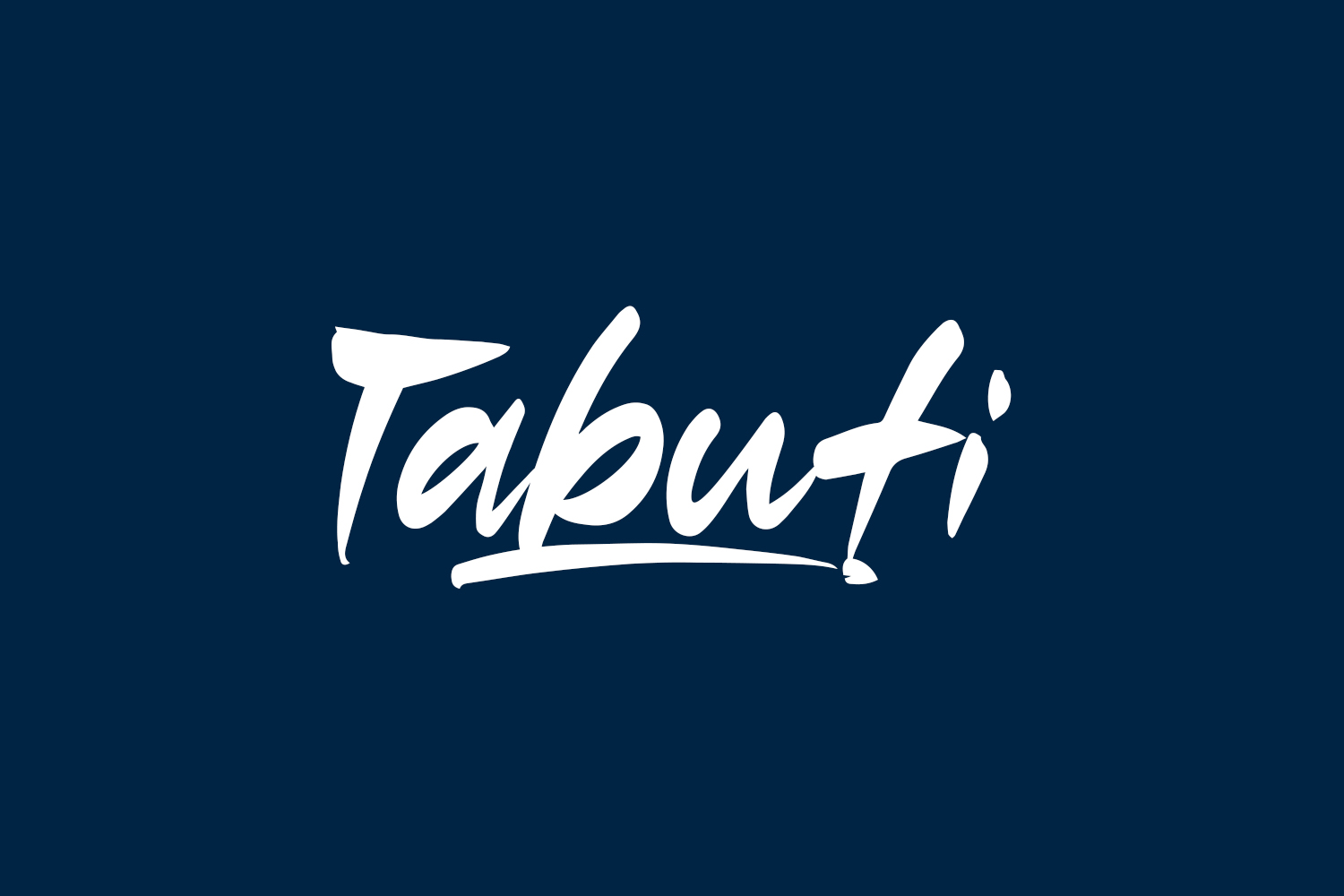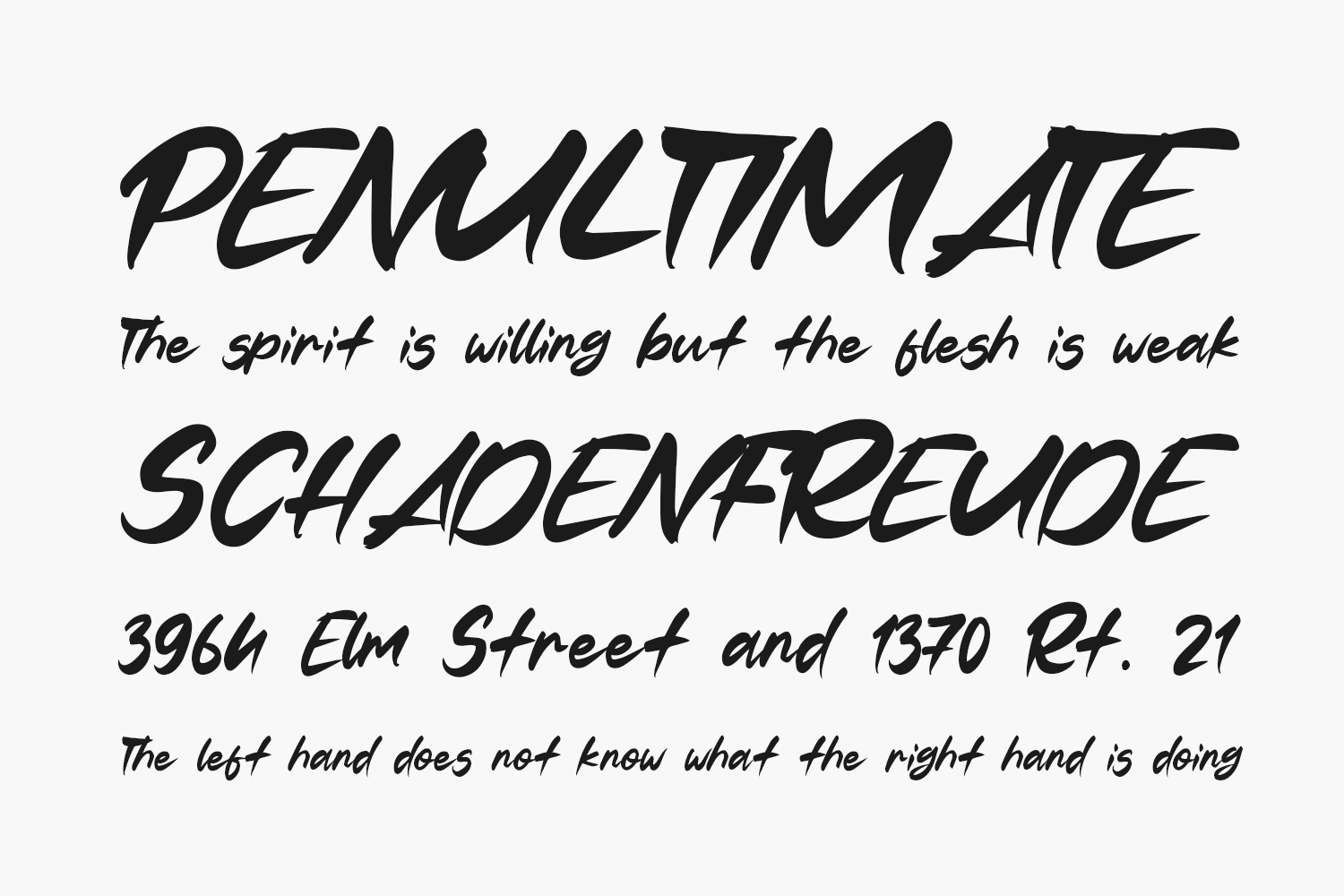
Tabuti Free Font is a modern brush calligraphy font perfect for posters, logos, magazines, book covers, banners, and many more! Get this amazing freebie, and use it to create lovely designs. Tabuti Free Font was designed by Khurasan and is free for personal or commercial use.